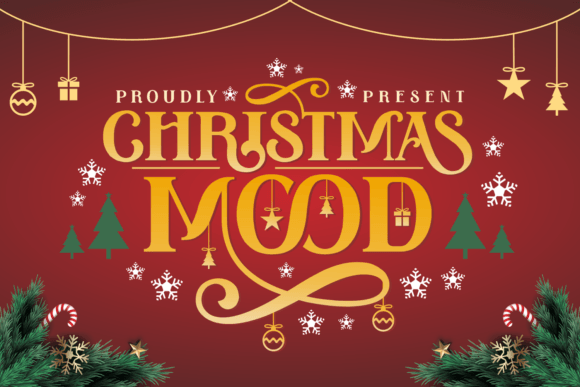
Make this holiday season unforgettable with the Christmas Mood Font! This stunning display font, created by Dani from 7NTypes, is the perfect addition to any festive project.
With its modern yet whimsical style, Christmas Mood is sure to captivate your audience and transport them to a magical winter wonderland. Whether you're designing a holiday card, creating social media graphics, or crafting a personalized gift, this font will help you create a truly unforgettable experience.
But what sets Christmas Mood apart from other fonts is its ease of use. This font is PUA encoded, which means you can easily access all the glyphs and ligatures. Say goodbye to the frustration of searching for the right character and hello to a seamless design experience.